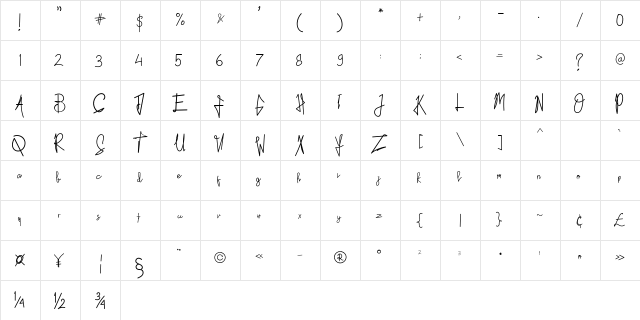
Kid Rough Regular
| Foundry | Degi Kurniawan |
| Designer | Degi Kurniawan |
Design Context for Kid Rough Typeface
Kid Rough trades polish for personality, using distressed and eroded forms to bring grit and attitude to creative work.
Suited to punk-influenced zines, underground music branding, streetwear, and raw, anti-corporate design.